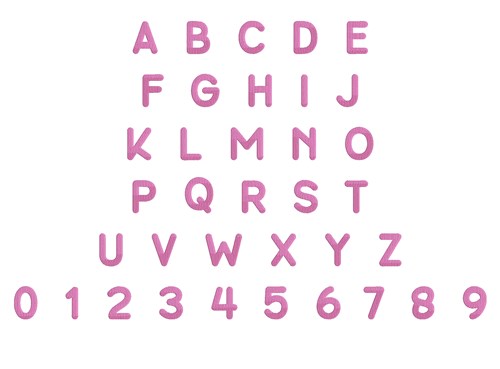
Soft Bubbles Embrilliance Embroidery Font - Playful Rounded Design - BX font by Satin Stripes and other embroidery fonts available at EmbroideryDesigns.com.
This rounded, playful machine embroidery font is perfect for crafting cheerful designs on baby blankets and clothing. Showcased in a soft pink color, it includes uppercase letters and numbers in a thick outline. Available in BX font.